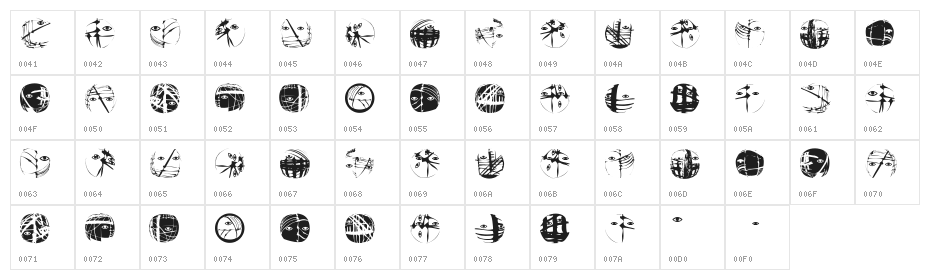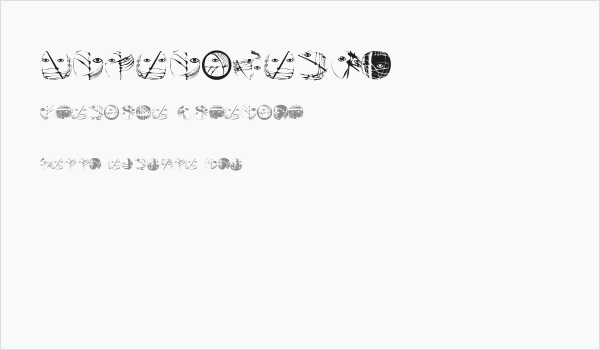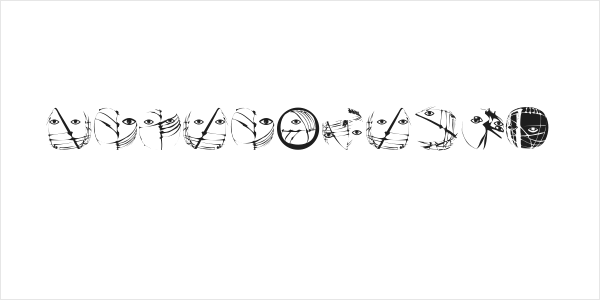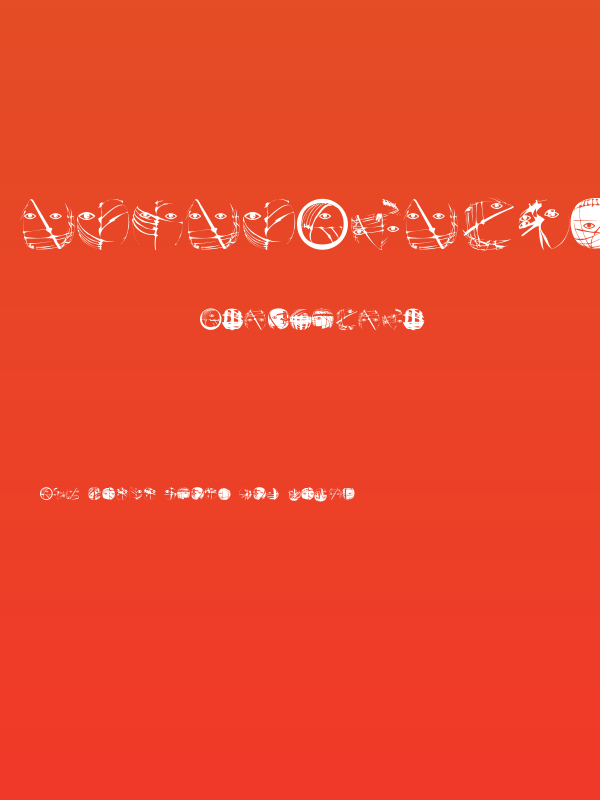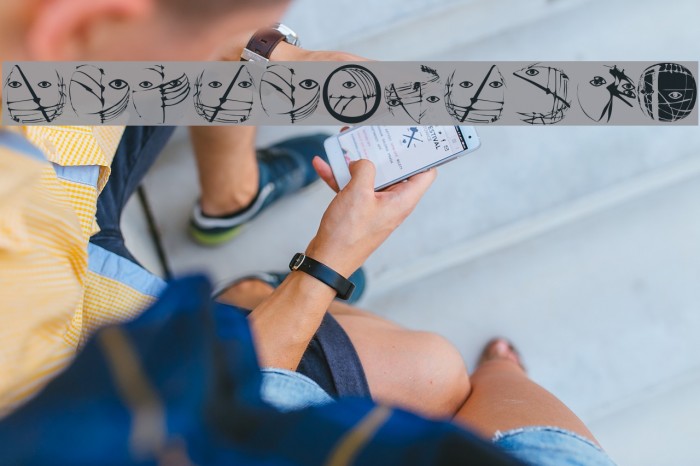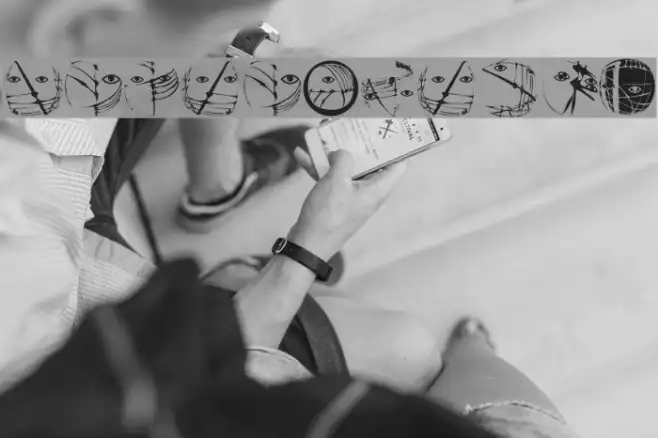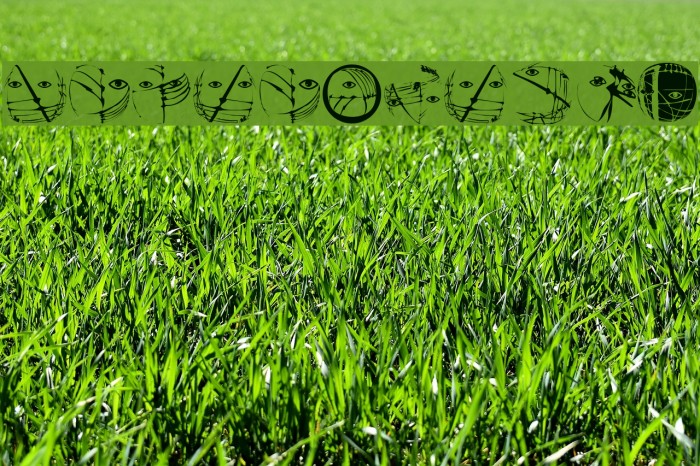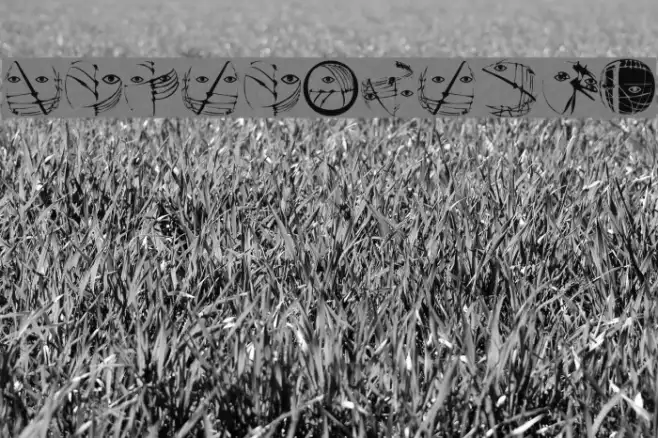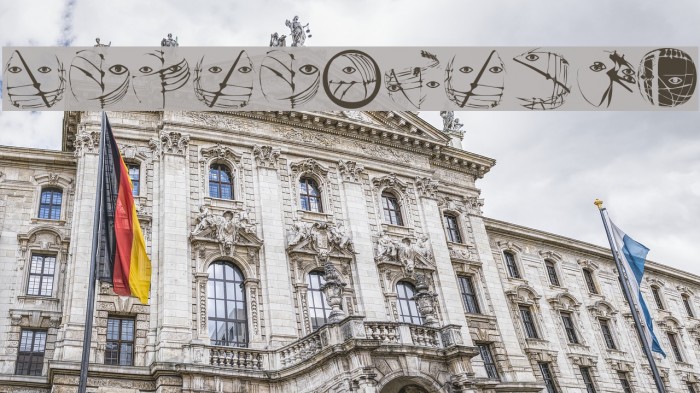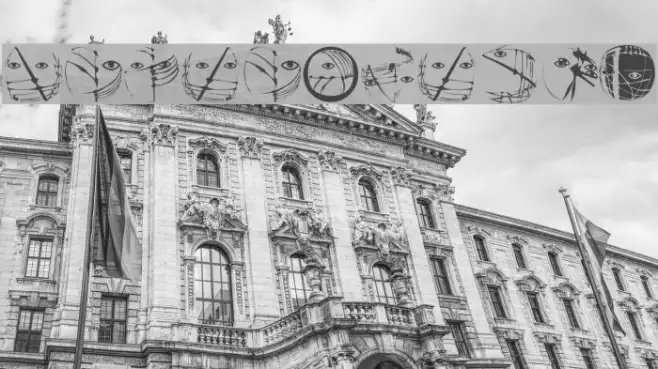
EclectHeads Font
EclectHeads Description
This font is a highly creative and artistic representation where each character is uniquely designed to resemble abstract faces or heads. The characters are enclosed in circular shapes, with intricate line work and varying patterns that give each letter a distinct personality. The design is bold and expressive, with a mix of sharp angles and smooth curves. The font's artistic nature makes it more suitable for decorative purposes rather than traditional text. It captures attention with its unique style, making it ideal for projects that require a strong visual impact.
ECLECTHEADS UPPERCASE
ECLECTHEADS LOWERCASE
ECLECTHEADS OTHER CHARS
| Use Case | Logos, Headlines, Artistic Displays |
| Proposed Projects | Ideal for art projects, creative branding, album covers, and unique poster designs. |